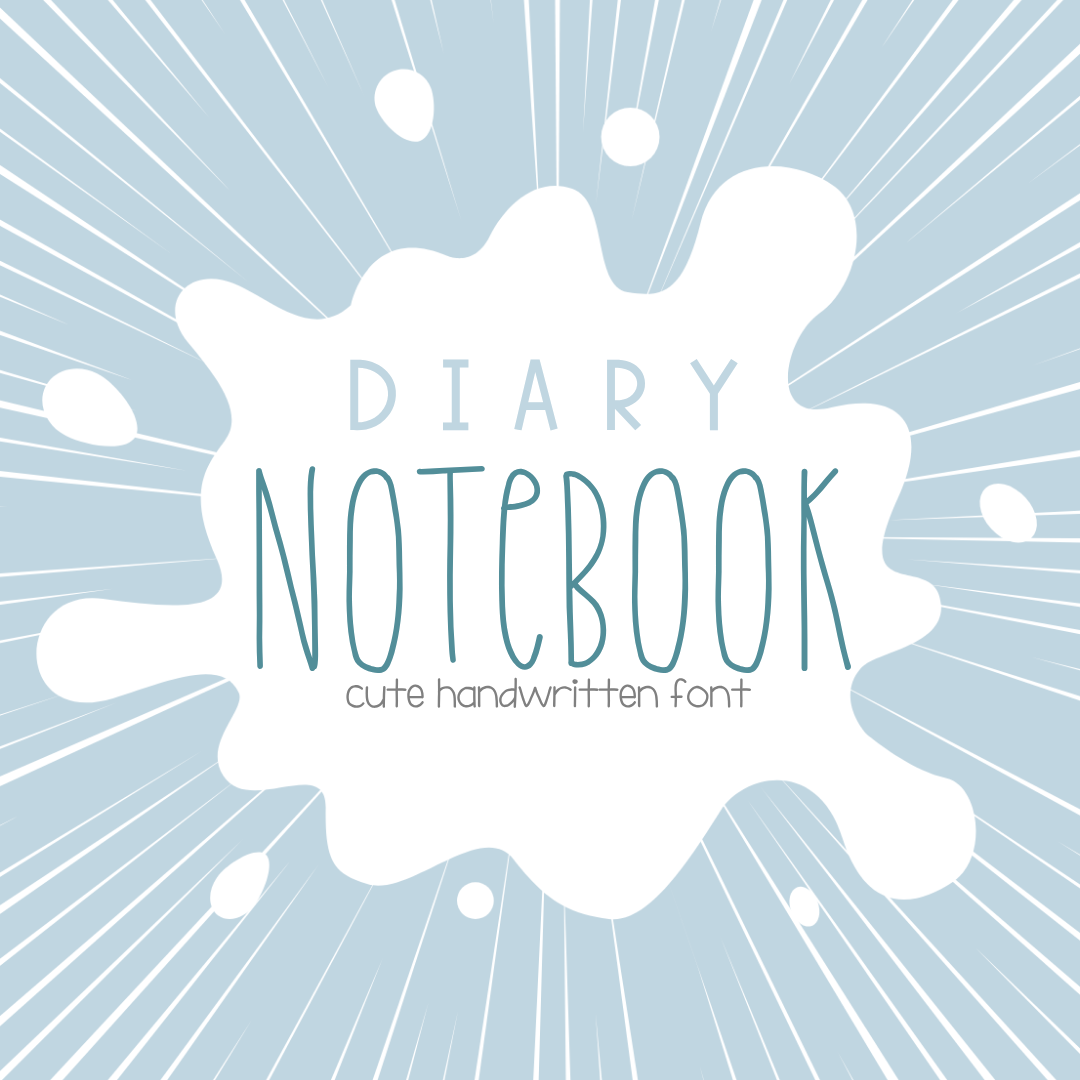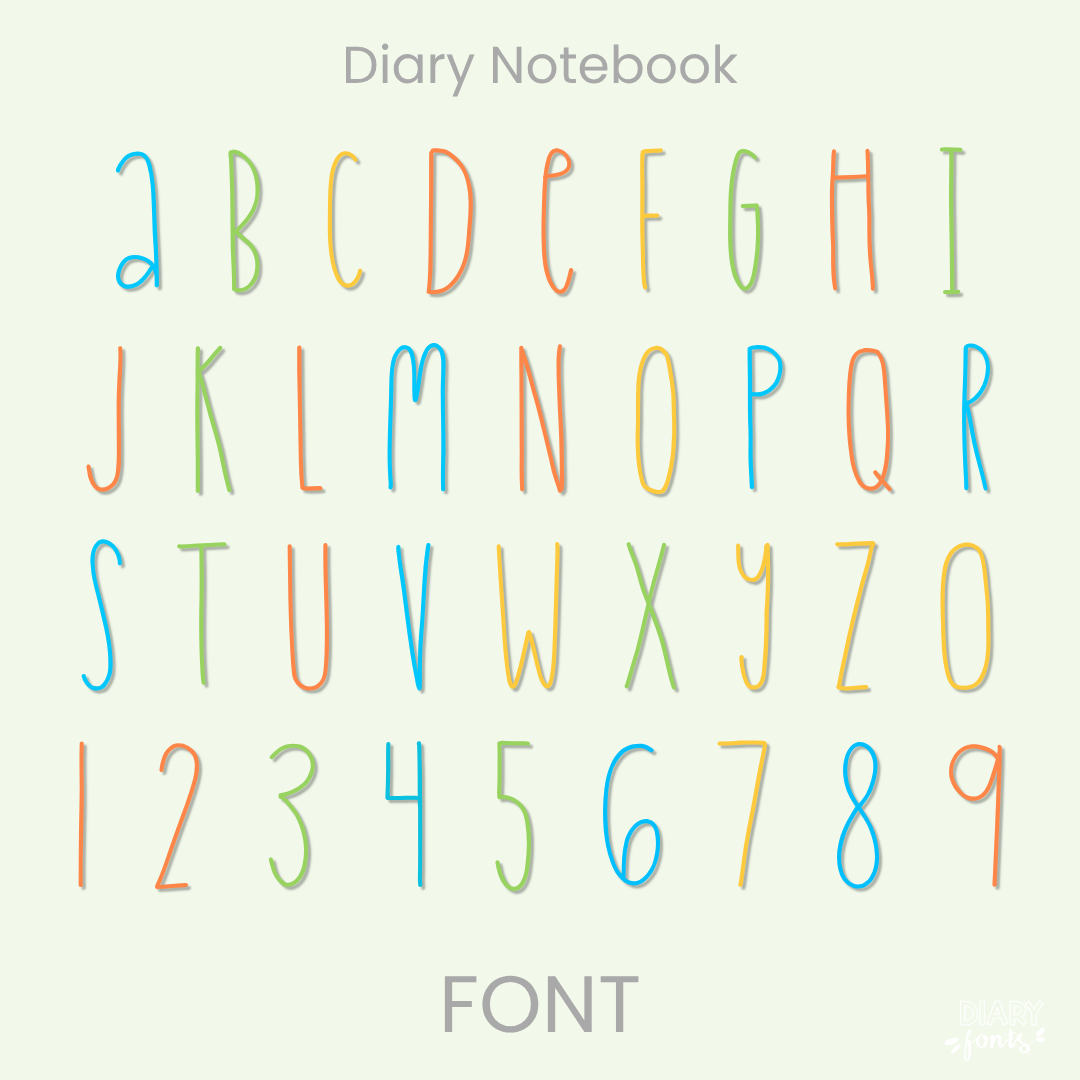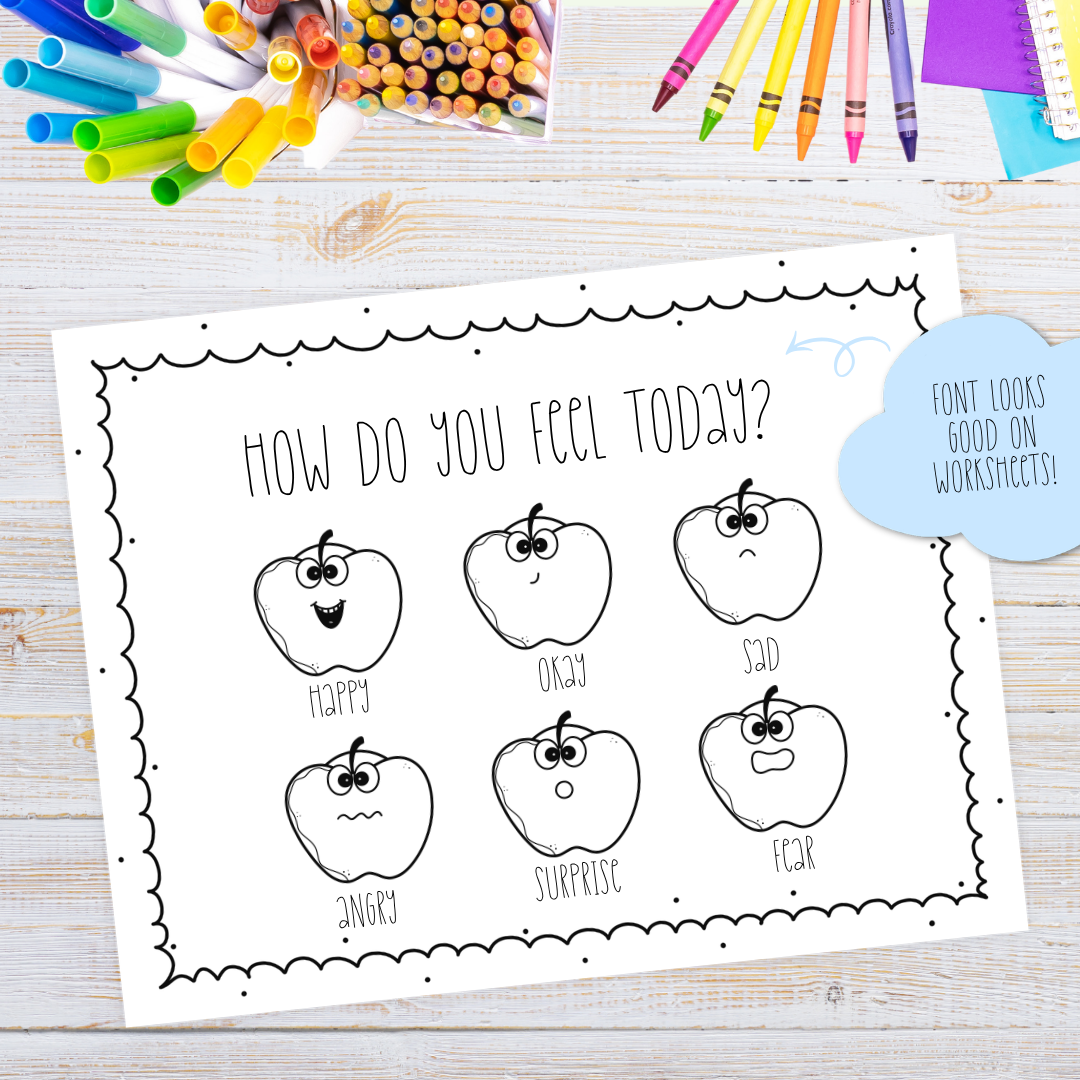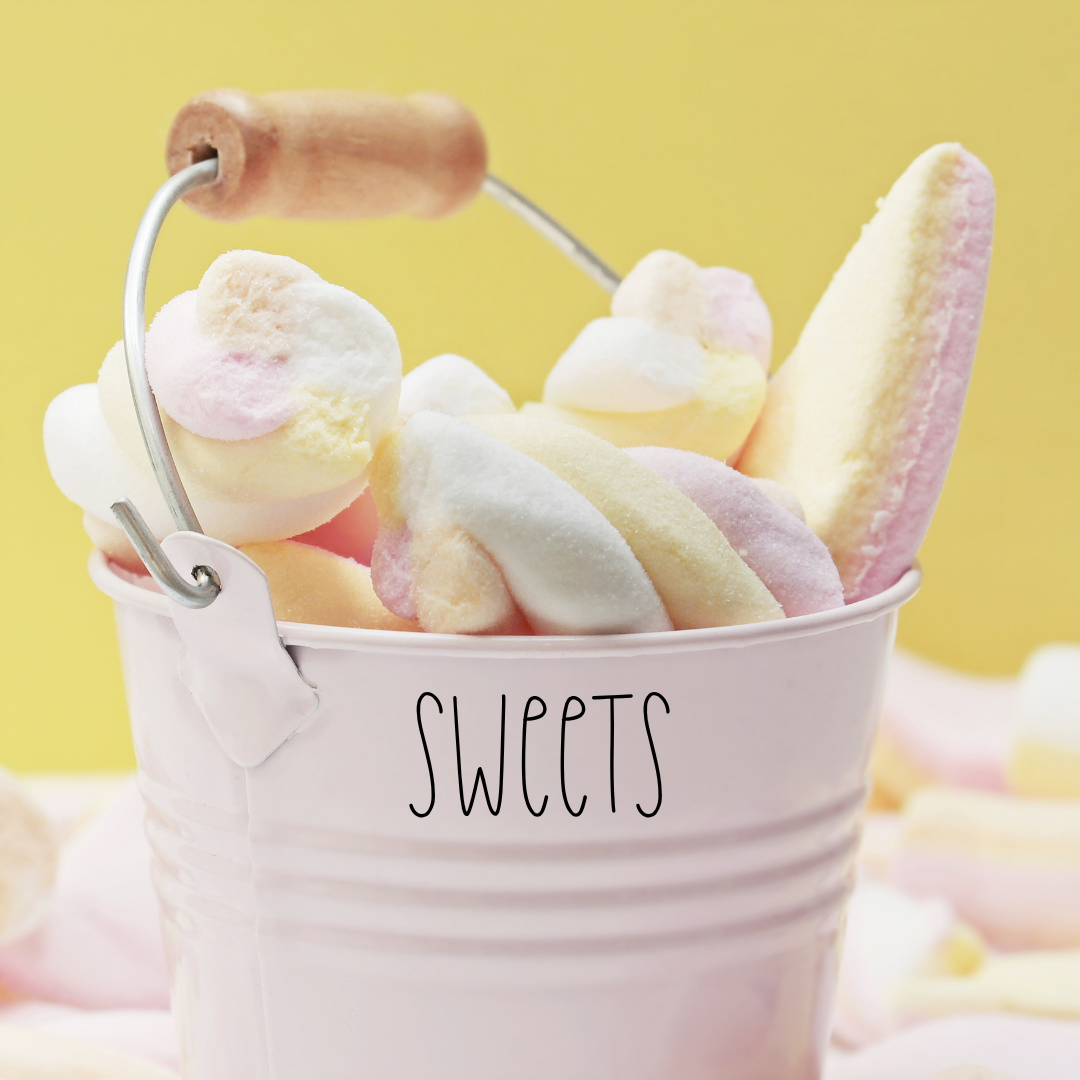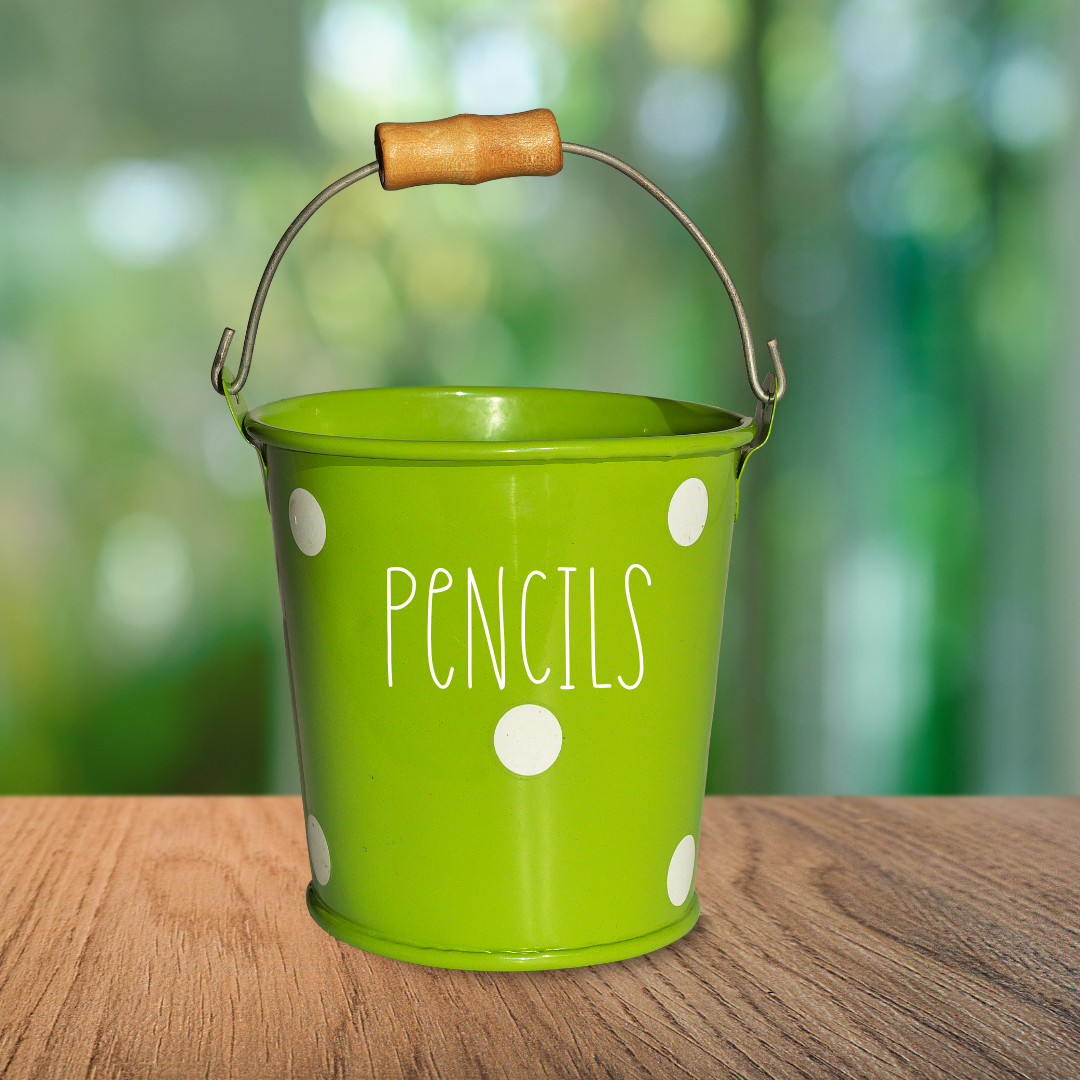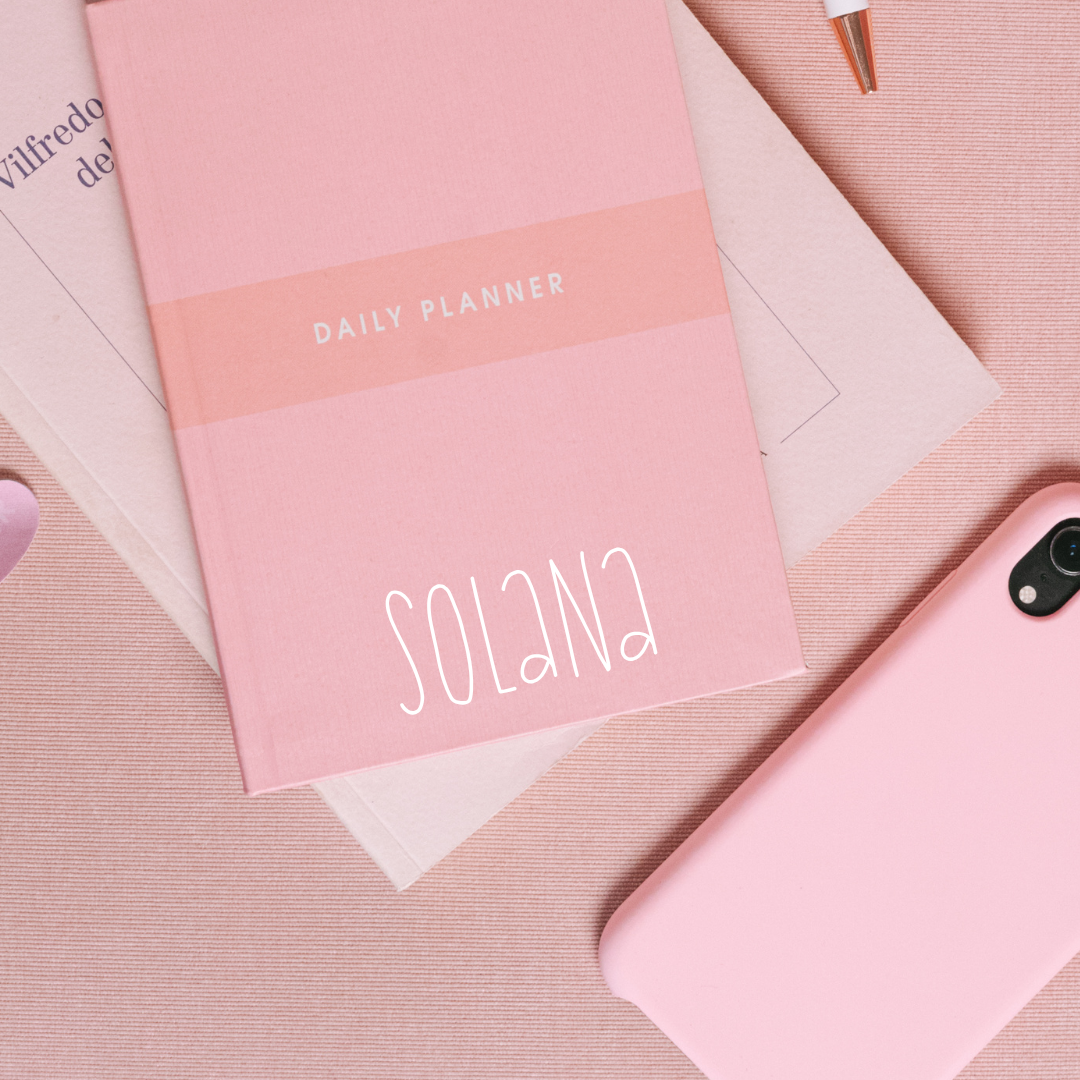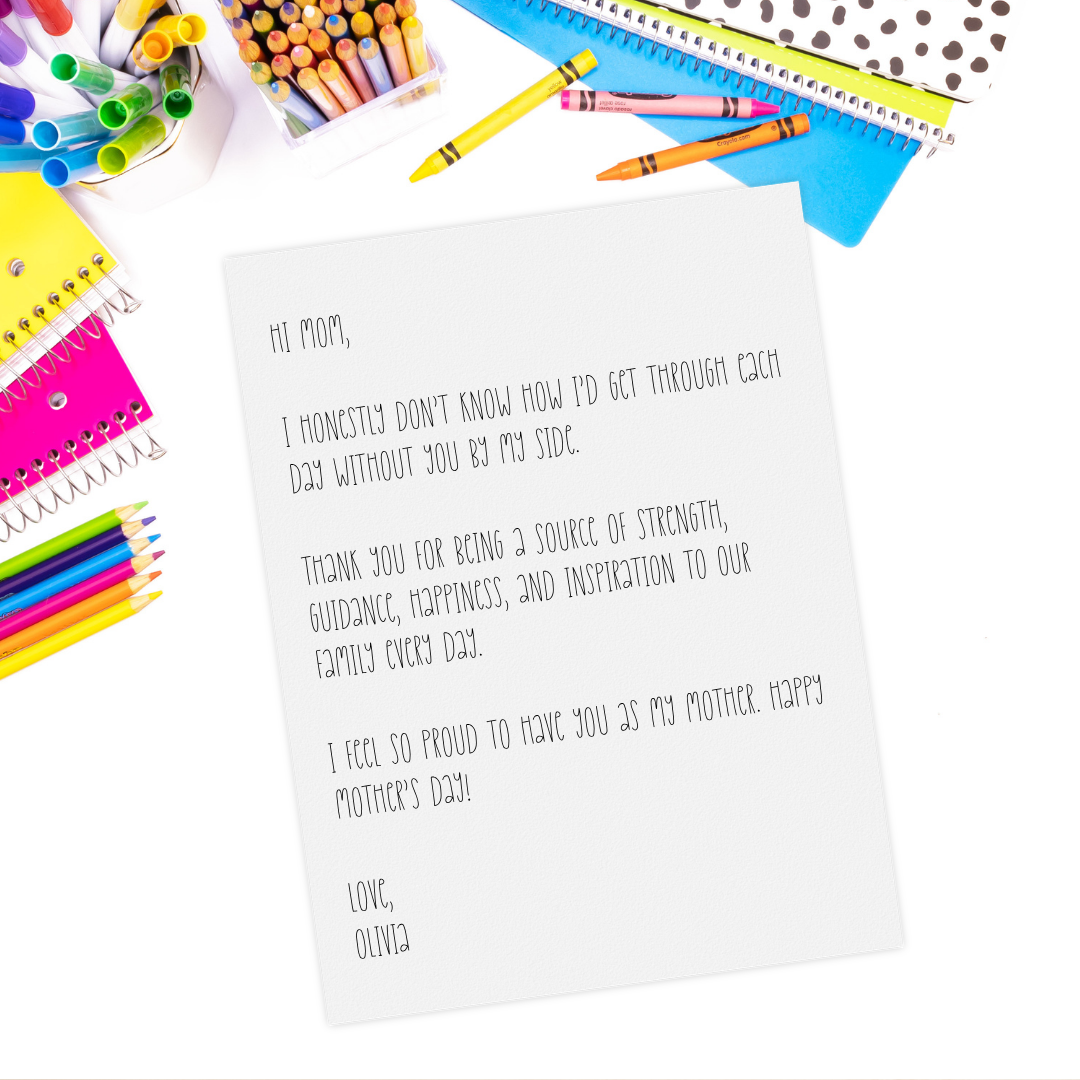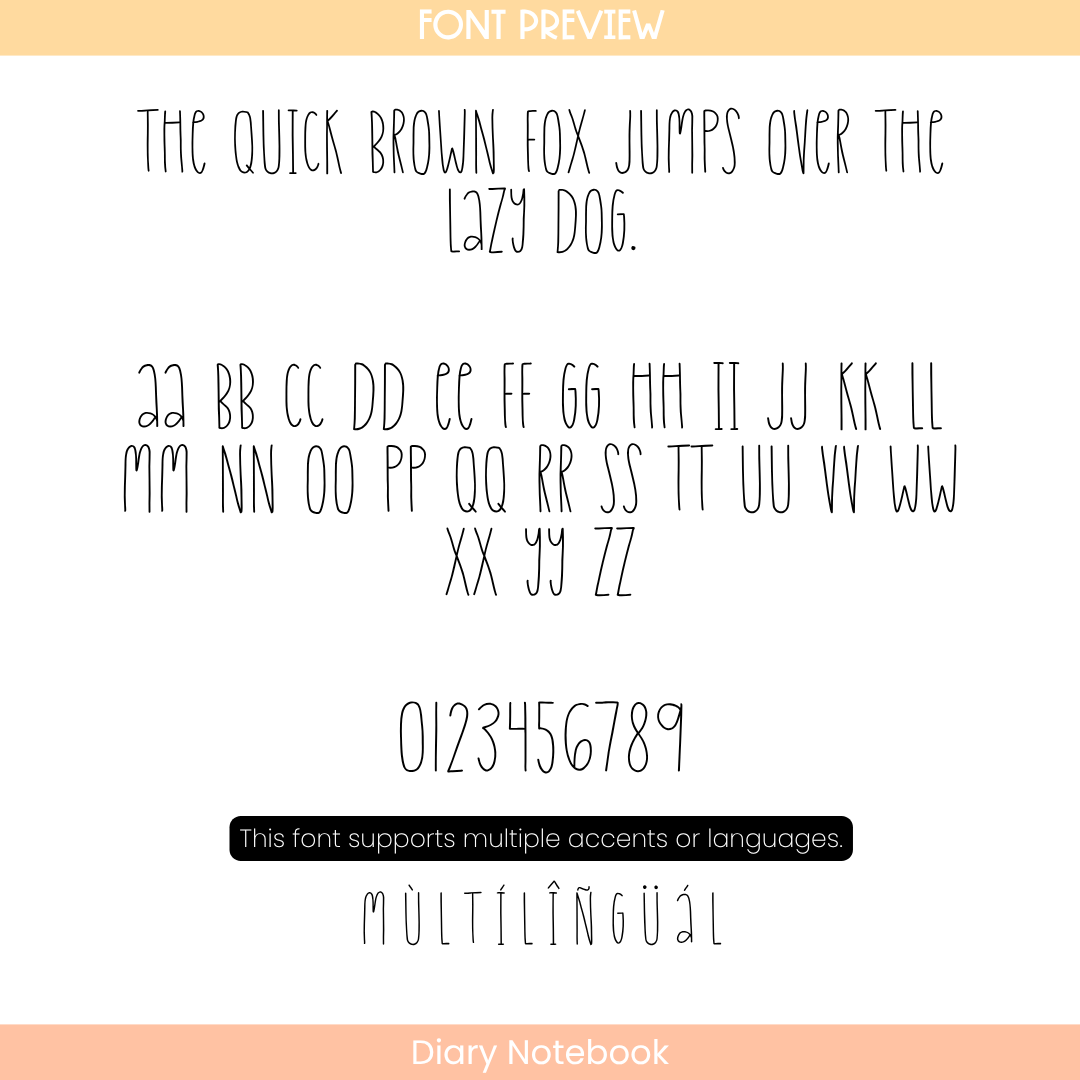
If you’ve been searching for a narrow, everyday primary font that brings a delicate and precious feel to your designs, Diary Notebook is about to become your new absolute favorite creative asset. This lovely typeface features ultra-slender, vertically elongated character structures with a delicate, single-weight monoline stroke. Standing tall and uniform along the baseline with a relaxed, upright posture, its elongated and skinny design allows you to fit text into compact spaces seamlessly while maintaining a remarkably clean, crisp appearance that your sweet students can read effortlessly.
It is an absolute dream choice for typing up elementary worksheets, organizing classroom supply bins, labeling small storage jars, and writing heartfelt letters or notes home. Inside the download, you’ll get a complete set of narrow uppercase and lowercase print letters, clean tall matching numbers, and multi-accent markings for full multilingual support. It drops right into Canva, MS Office, or Adobe on your desktop, and pairs beautifully with Procreate and GoodNotes on your iPad. Whether you’re organizing classroom spaces for your own sweet students or crafting clean, commercial-use printables for your teacher shop, this skinny display font brings a touch of confident, warm style to your toolkit.